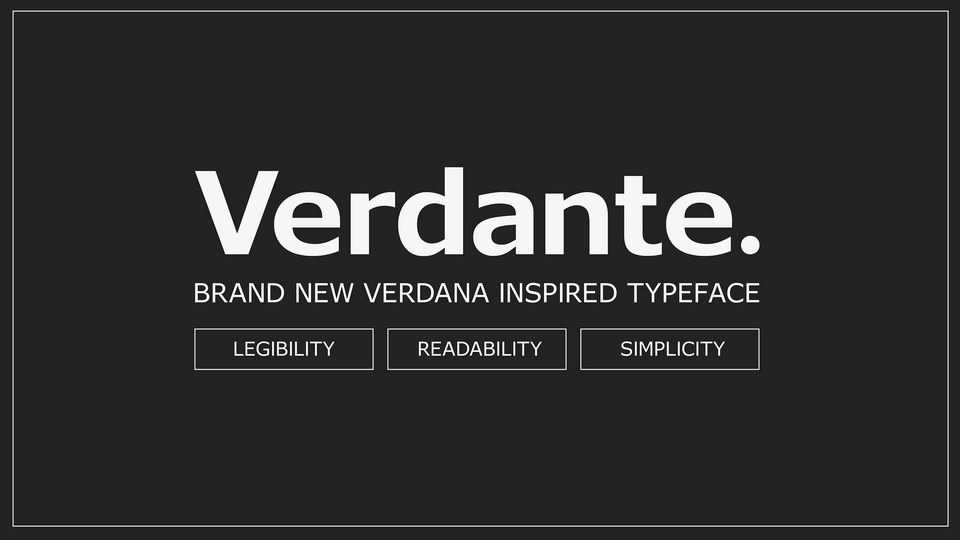
Download Verdante is a brand new Verdana inspired typeface with its organic, humanist characteristics. Verdante is a refresh of its predecessor – keeping all the good bits, but also addressing some of the less appealing elements.
Designer: Pavils Vorobjovs